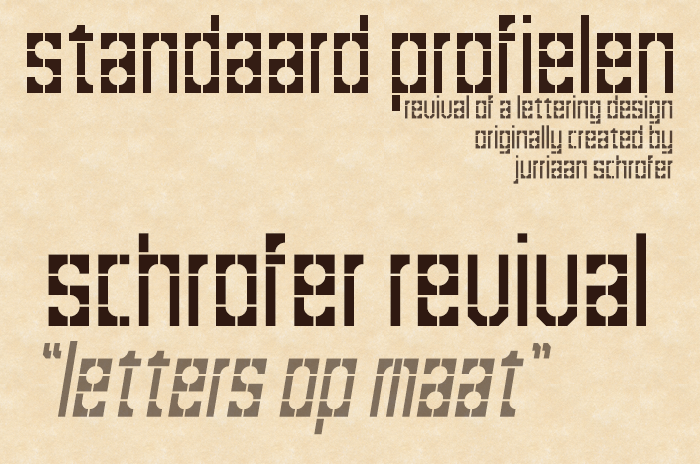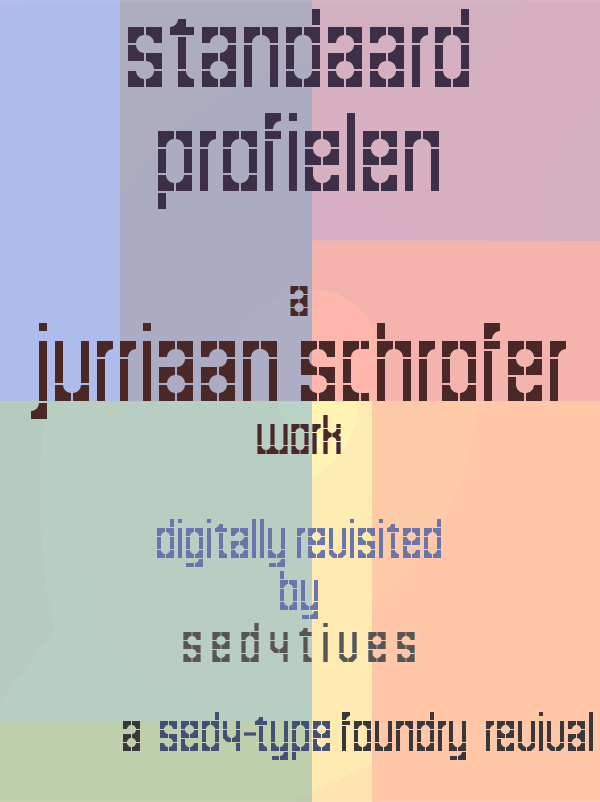
• STANDAARD PROFIELEN ― Digital revival/extrapolation of a logotype originally designed by "Jurriaan Schrofer"
Jurriaan's original work is a logotype style lettering for a corporate identity brochure, that he designed for one of his clients, a Dutch timber trading company called: "Houthandel Rote - Westzaan N.V."
Schrofer's original work featured the plain black text   "standaard  profielen"       and was written in all lowercase letters. (source image bellow)
As far as I know this were the only characters he designed for this specific project.
It's a very simple grid based modular brick type lettering. Only two bricks were used to create each individual letterform. So they have a profound and inevitably dictating resonance to the visual appearance of the letterforms, a visual presence that I could not stray away from too far.
This stylistical design parameter made it somewhat extra tricky for the successfully faithful extrapolation of the remaining missing glyphs, turning it into a complete glyph-set and basic usable font. The source also remains pretty unclear on how Jurriaan would've designed characters with crossing strokes, such as Kk / Xx.
The original corner brick works well with just this small character set in the source, but the rectangular outside part of this brick fills a substantial surface area, (over 3/4th of a brick in total), resulting in bleeding-like contrast issues. So, having mostly undesirable effects in brick-congested areas or with intersecting strokes.
An additional beveled corner brick was added to address most of this issue.
All 'n all, for this reason I just captured its basic lowercase letterforms, numerals and only the bare essential punctuation marks for making it functional are included for now, no accents !
The original as was created by Jurriaan Schrofer.
Added additional glyphs and completed A-Z, tweaked some glyphs, added more basic punctiation marks and fine tuned it some more, but all was done in a effort to make this a more complete and overal usable font.
Also the occasional longer continuous strokes in his design did somewhat feel little random to me, whereas yours repeats certain design choices more consistent throughout the entire character set.
I kind of tried to implement this the best I could in my revival as well, and without disrupting Jurriaan's choice for not having this to begin with, - finding myself lost between Scylla and Charybdis.
I think the difficulties I faced with this one were partially due to the fact that Jurriaan's lettering was never meant to be a full typeface.